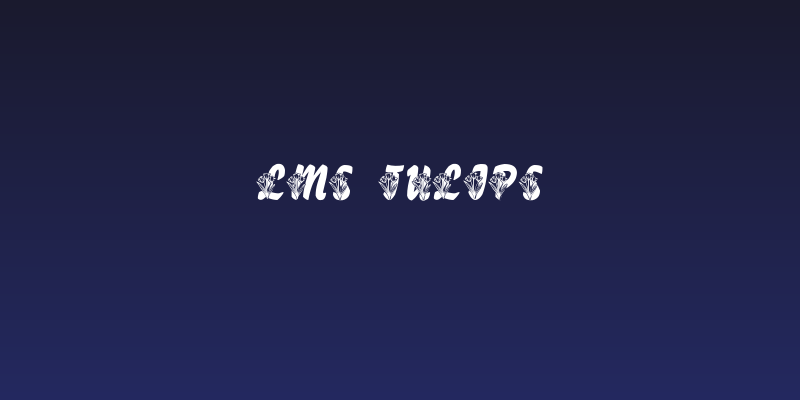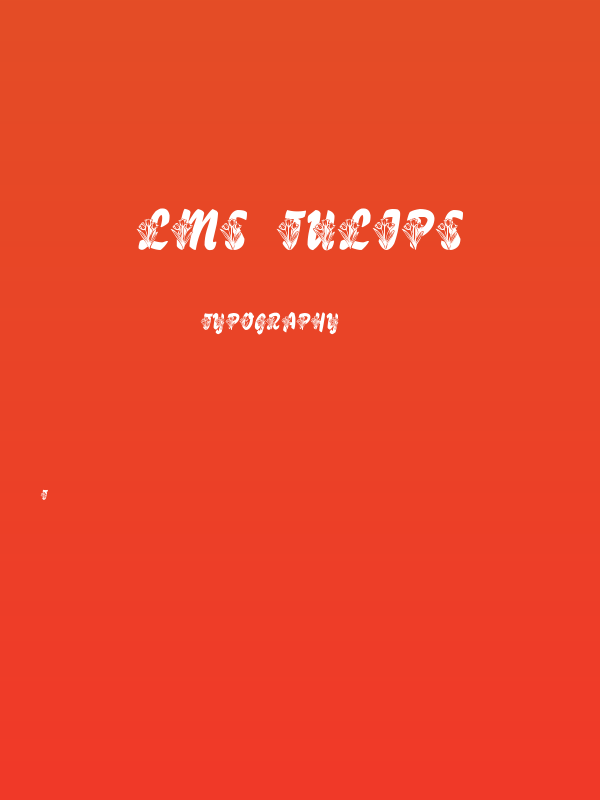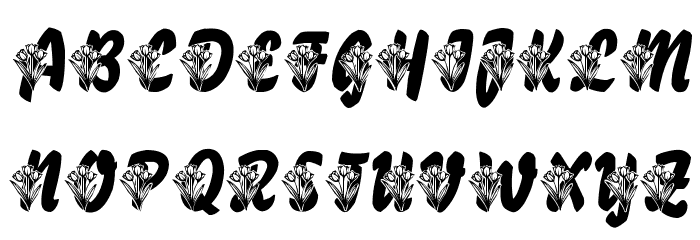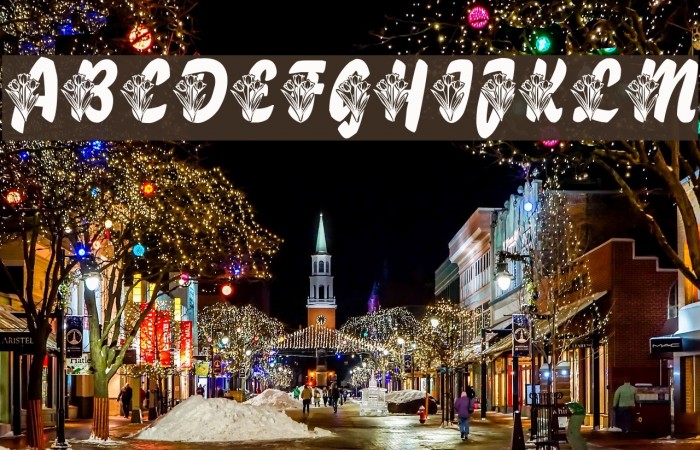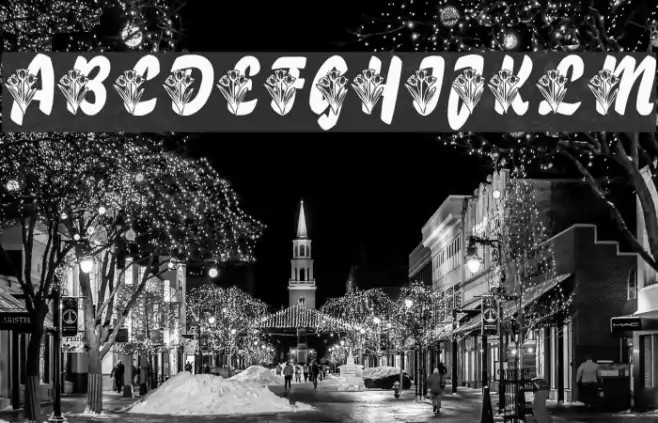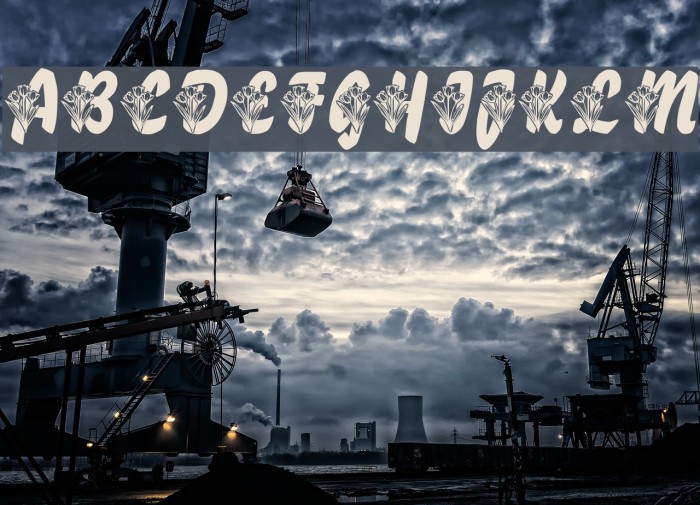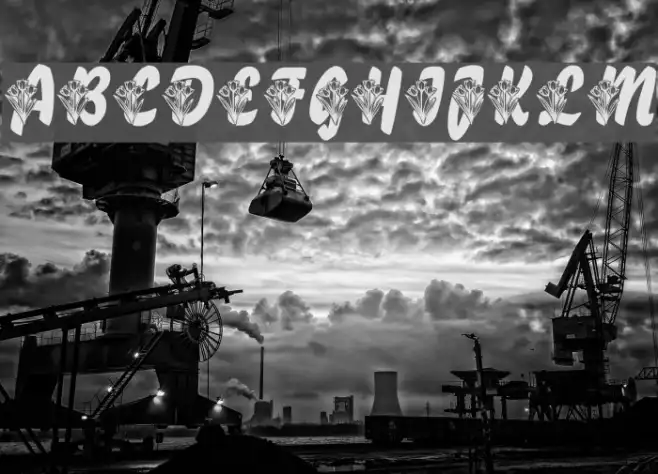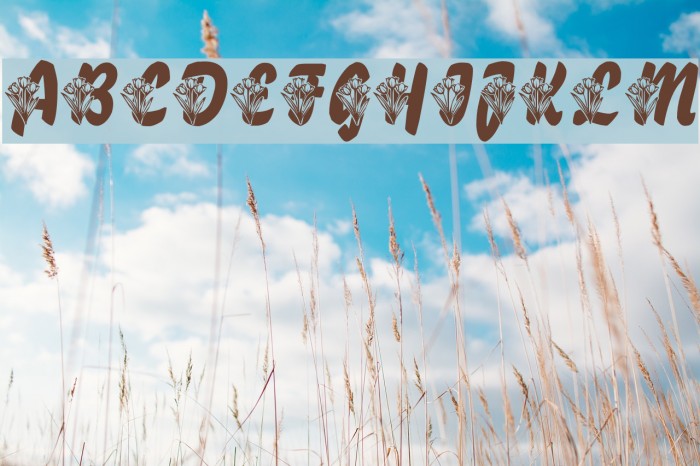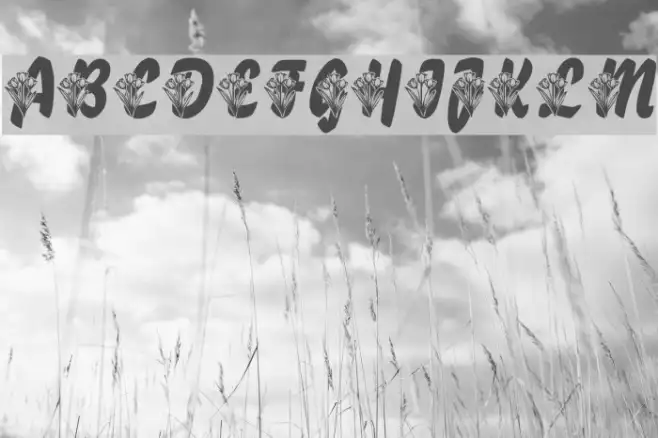
LMS Tulips Font
LMS Tulips Description
This decorative font features bold, flowing letters with intricate tulip designs integrated into each character. The uppercase letters are particularly striking, with the floral motifs adding an ornate touch that makes each letter stand out. The lowercase letters maintain the same decorative style, ensuring consistency throughout the typeface. The numbers and special characters are also adorned with tulip embellishments, making this font ideal for projects that require a unique and artistic flair. The overall design is both elegant and playful, capturing the essence of floral beauty in typography.
| Use Case | Headlines, Logos, Decorative text |
| Proposed Projects | Ideal for wedding invitations, greeting cards, branding for floral shops, or any project seeking a decorative and artistic touch. |